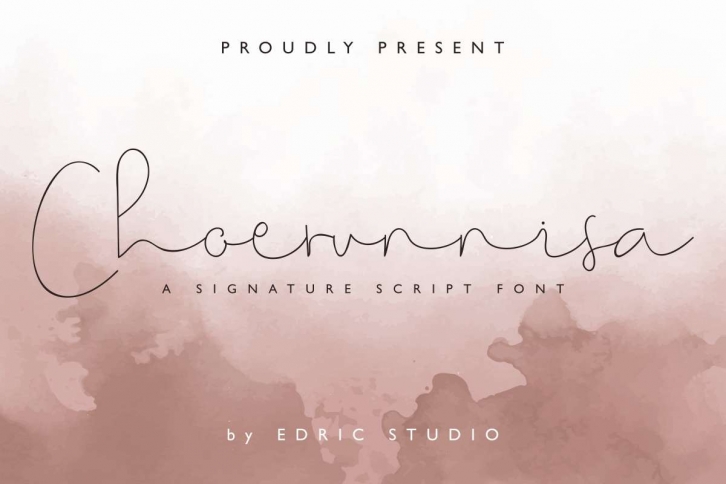
Choerunnisa is a beautiful font that was designed by EdricStudio. It's a great choice for designers and creatives who need such a font. It was released on February 11, 2020 and the file size is 17.35 MB. Choerunnisa may give a more youthful, expressive and casual look to your project. It is a very beautiful, refined, elegant, and high-quality font.